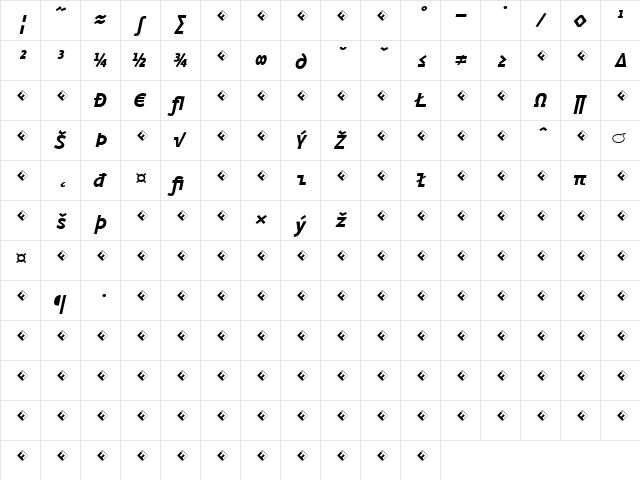
Eureka Mono Exp Regular
Design Context for Eureka Mono Exp Typeface
Eureka Mono Exp brings the precise, column-aligned rhythm of monospaced typography to designs that value technical clarity and systematic order.
Well-suited to data-driven dashboards, coding tutorials, and any design that wants to reference the world of programming.
Pro Tip: Use Eureka Mono Exp with slightly increased line-height for extended reading — fixed-width spacing can feel dense in longer passages without extra breathing room.